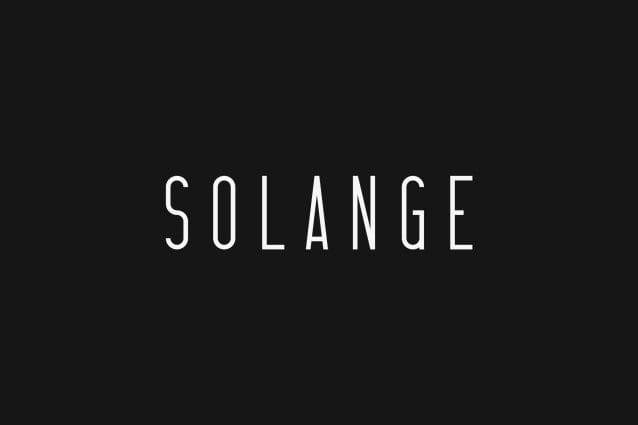
Solange Sans Font
Solange Sans Font is an elegant and versatile display font that will make your typography truly unique! It will enchant every logo, branding, headline, or plain text!